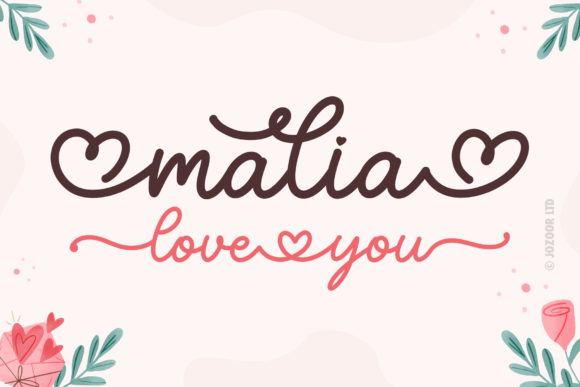
Introducing Malia Love You Font, the epitome of romance and sweetness in the world of typography. Crafted with love by Jozoor, this exquisite script font will steal your heart and captivate your imagination.
With its delicate strokes and charming curves, Malia Love You Font adds a touch of elegance to any design. Whether you're planning a dreamy Valentine's Day surprise, creating stunning wedding invitations, or crafting the perfect save the date cards, this font is your ultimate companion.
Imagine the joy on your loved one's face when they receive an invitation adorned with this enchanting font. It exudes a sense of passion and tenderness, making every word come alive with emotions.
But the magic doesn't stop there. Malia Love You Font is not just limited to romantic occasions. Its versatility extends to fine art papery, feminine branding, personal gift cards, and any other lovely projects you can imagine. Let your creativity run wild with this font as your muse.
One of the standout features of Malia Love You Font is its PUA encoding. This means that accessing its wide range of glyphs and swashes is a breeze. You'll effortlessly unlock a treasure trove of design possibilities, allowing you to create unique and eye-catching pieces that stand out from the crowd.
Each letter is handcrafted with utmost care and attention to detail, ensuring that every stroke is infused with love. The result is a font that not only looks beautiful but also evokes a sense of warmth and affection.
Don't settle for ordinary fonts when you can elevate your designs with Malia Love You Font. Its captivating charm will make your words dance on the page, leaving a lasting impression on anyone who lays eyes on your creations.